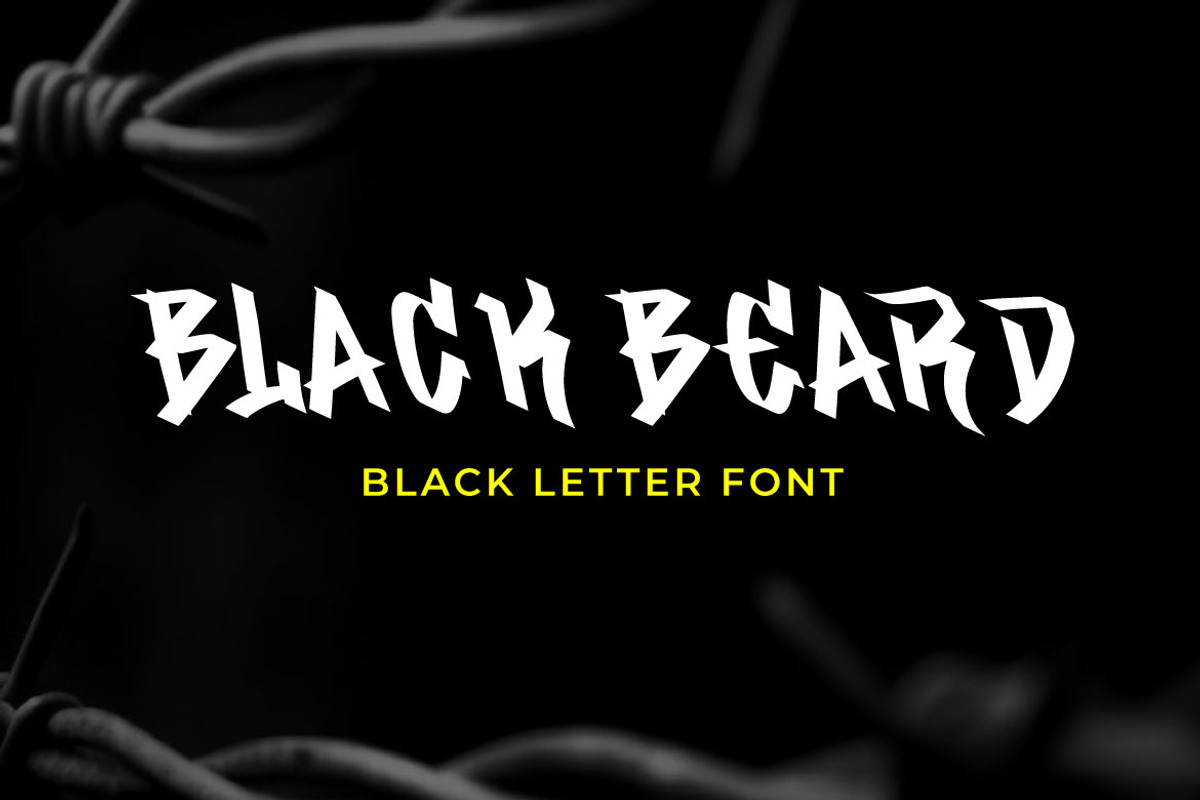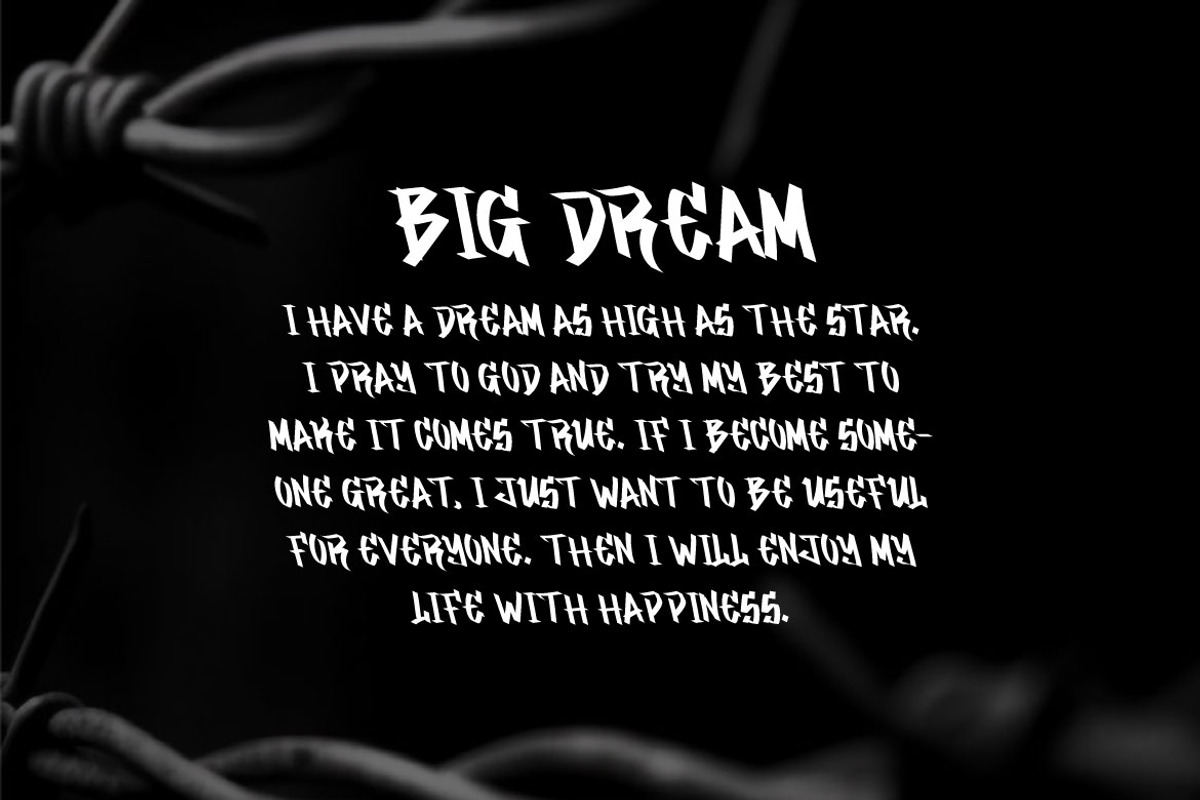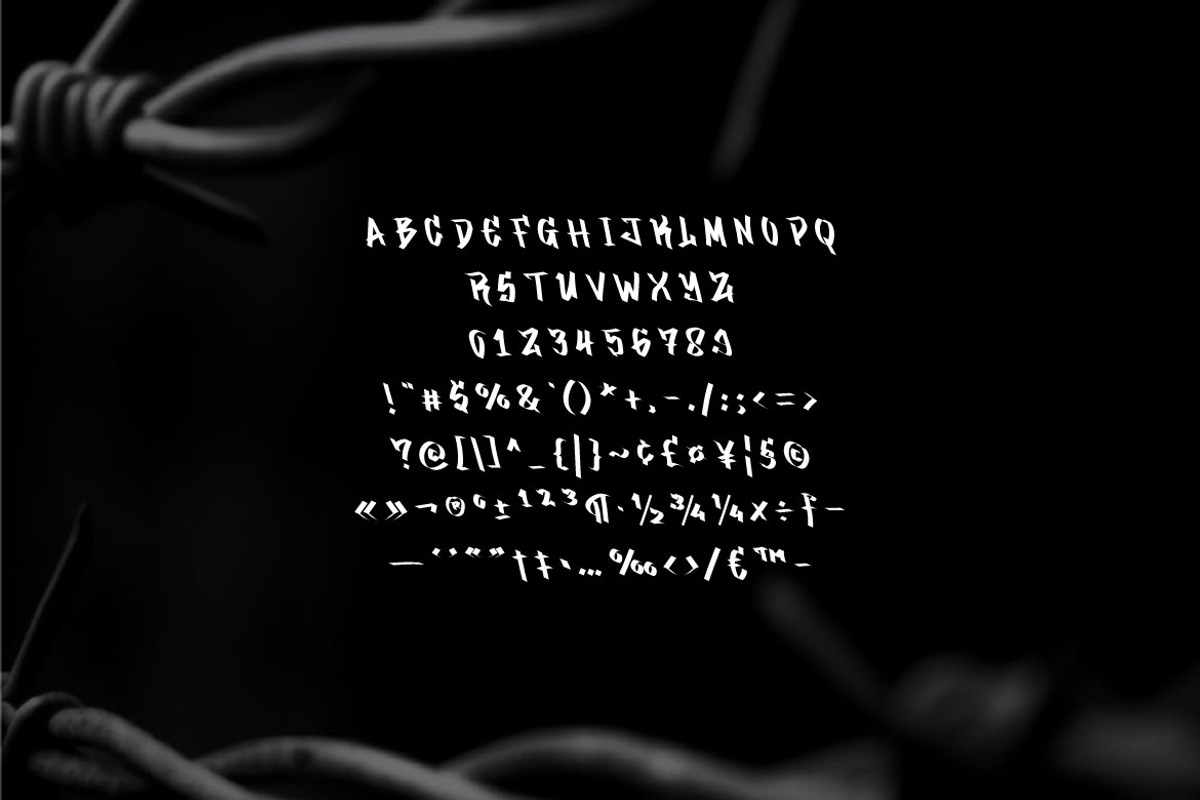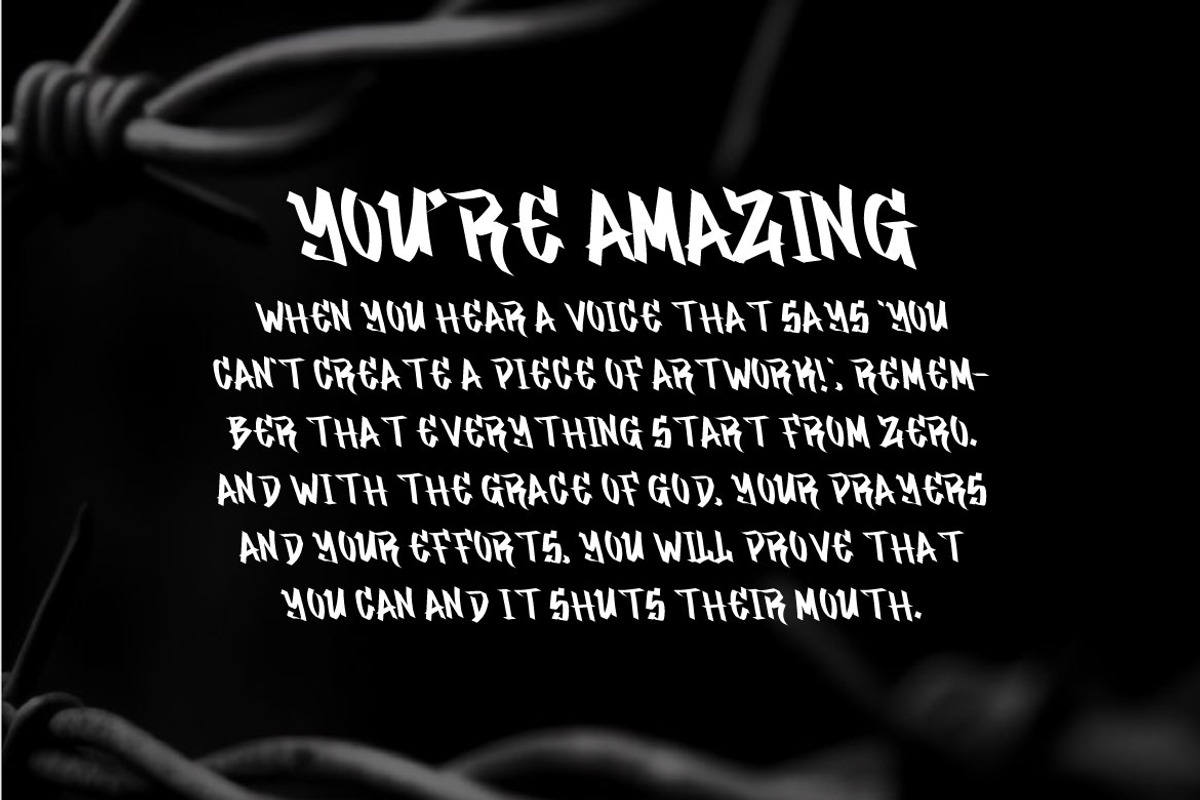
Black Beard - Blackletter Font
Black Beard is a graffiti typefaces that emulates the artistic and expressive style of graffiti writing found in urban environments. This font is characterized by bold, dynamic, and chaotic letterforms that draw inspiration from street art and spray-painted graffiti.
Black Beard capture the energy and rebellious spirit associated with graffiti culture. Whether to used in graphic design, street art projects, and other creative endeavors where a bold and edgy typographic style is desired. We're proud and honored if Black Beard can be the part of your special projects. Thank you :)